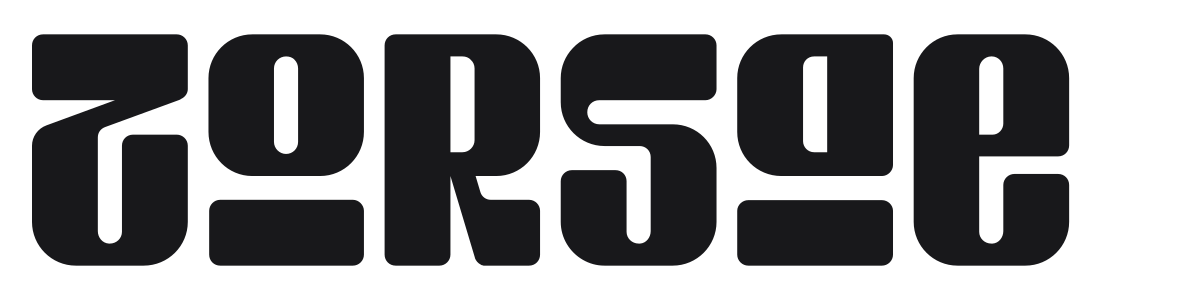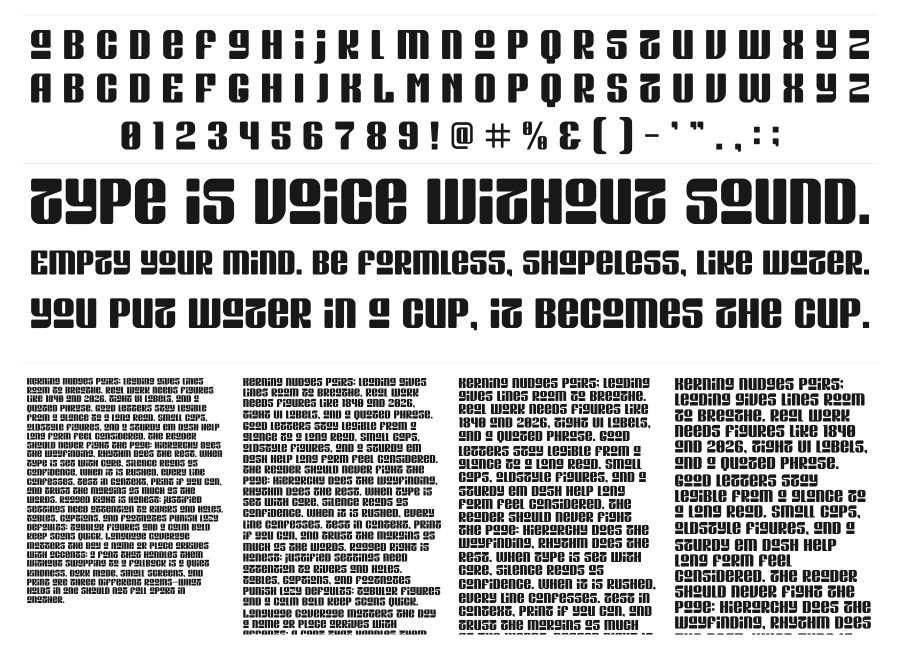
Torsae
Torsae is a heavy, modular display font with a retrofuturist edge built from blocky rectangular forms and punched geometric counters. Each character is constructed with thick, near-monoweight strokes and internal voids that give the design a mechanical, almost industrial character. It carries strong echoes of 1970s constructivism and Soviet-era graphic design, making it a powerful choice for posters, album covers, and bold identity work.